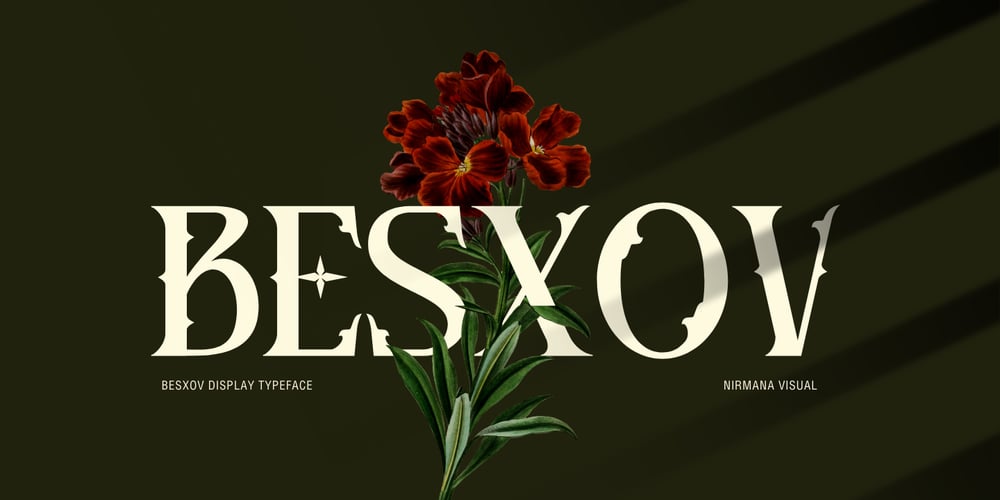
Besxov
Besxov font
Besxov Font Family was designed by Sigit Dwipa and published by Nirmana Visual. Besxov contains 1 styles and family package options. Besxov is a captivating Blackletter font that exudes a sense of historical charm and Gothic elegance. Its intricate, angular letterforms are reminiscent of medieval manuscripts and evoke a sense of old-world craftsmanship. Each character is meticulously crafted with sharp, dramatic strokes and ornate flourishes, creating a visually striking aesthetic. Whether used for branding, editorial design, or signage, Besxov commands attention and adds a touch of timeless elegance to any project.